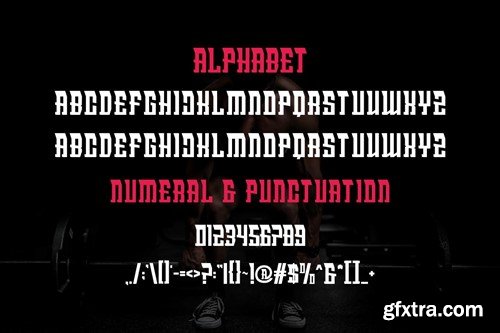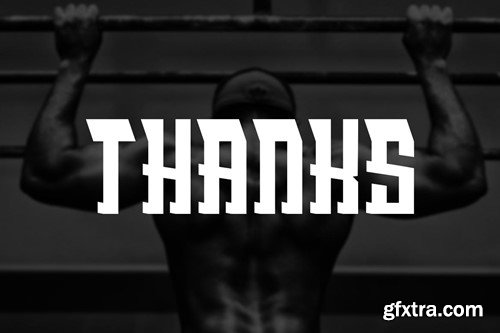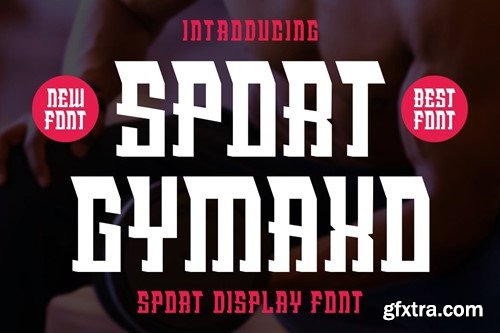
Sport Gymaxo Font
Introducing Sport Gymaxo Modern Decorative Font. Sport Gymaxo is a modern and simple font, best used as a display for headings, logos, branding, magazines, product packaging and invitations. Sport Gymaxo come with clean lines and smooth curves give any project an extra touch of class.